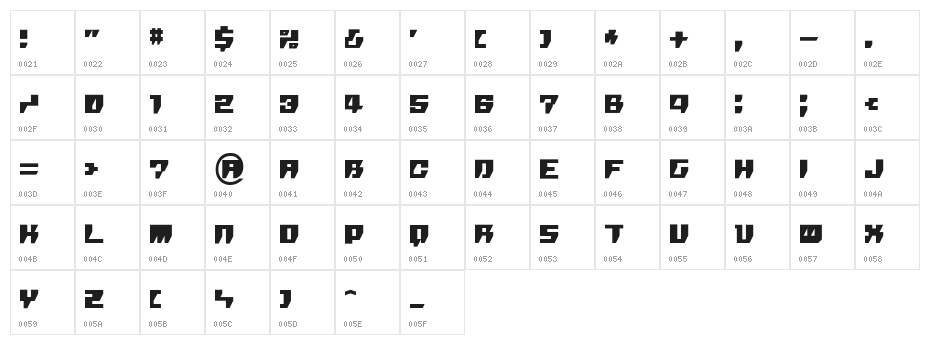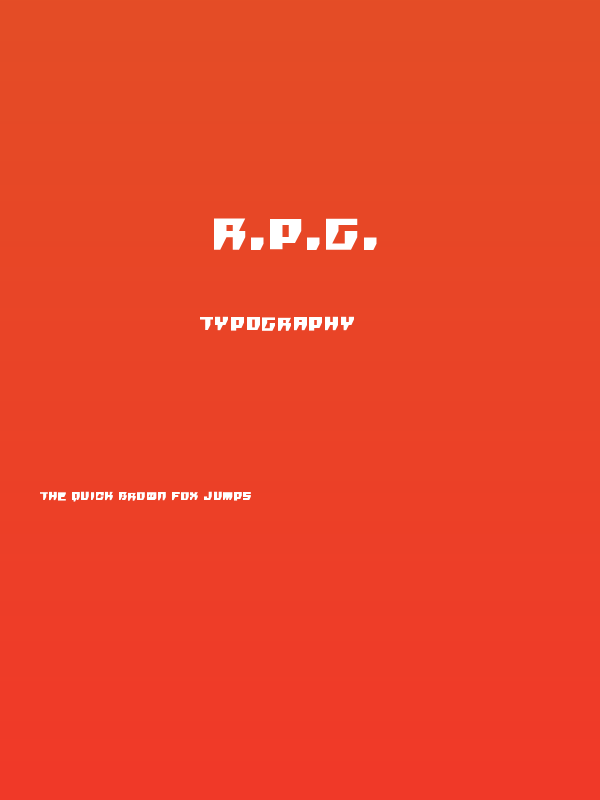
R.P.G. Font
R.P.G. Description
This font features a bold and geometric design with sharp angles and a futuristic aesthetic. The uppercase letters are blocky and robust, giving a sense of strength and modernity. The lowercase letters maintain the same angular style, ensuring consistency throughout the typeface. Numbers are equally bold, with a distinctive, edgy appearance that complements the overall design. Special characters are crafted with the same attention to angular detail, making them stand out while remaining cohesive with the rest of the font. This typeface is ideal for projects that require a strong, modern, and dynamic look.
Overall StyleFuturistic
Proposed ProjectsIdeal for video game titles, tech branding, sci-fi posters, and futuristic designs.